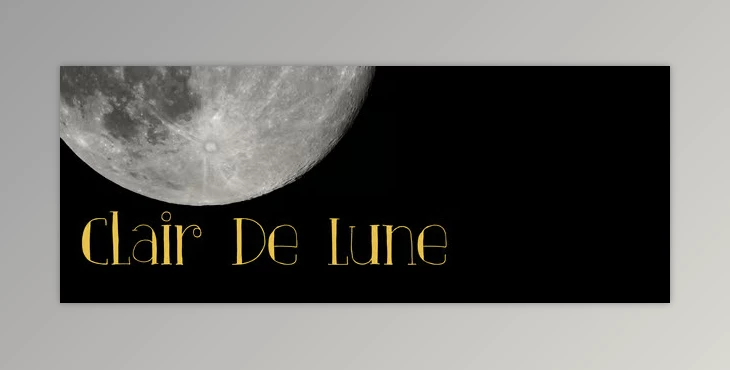
This goes for the font ‘ Clair De Lune Font Family 3xOTF’, too, where the font is inspired by Suite Bergamasque composed by Claude Debussy. The graceful and playful touch captured the moonlight romance perfectly through the design. Clair De Lune is best used for lively graphics, bright posters, and postcards when you want your message to stand out.
The font was dedicatedly crafted by hand with eco-friendly Italian paper and a 0.5 pen atop a rustic wooden freckled kitchen table, ensuring that no two pieces are the same.